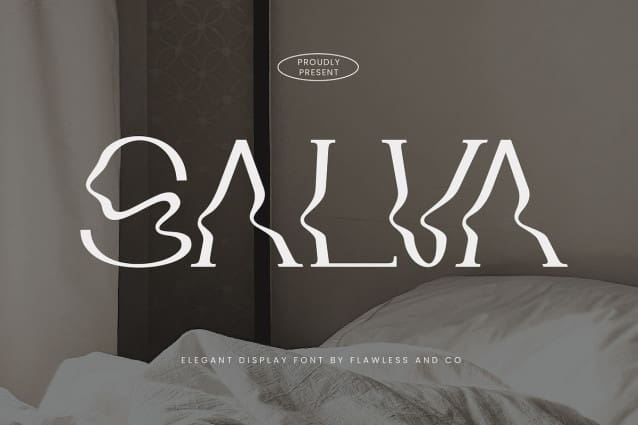
Salva Font
Salva Font – An Elegant Display Font. Prepare to be captivated by the distinctive allure of “Salva,” an elegant display font that weaves waves into every line of its letters, redefining elegance with its truly unique design. With its artistic flair and captivating style, “Salva” is crafted to be the centerpiece of your design, evoking a sense of sophisticated creativity.